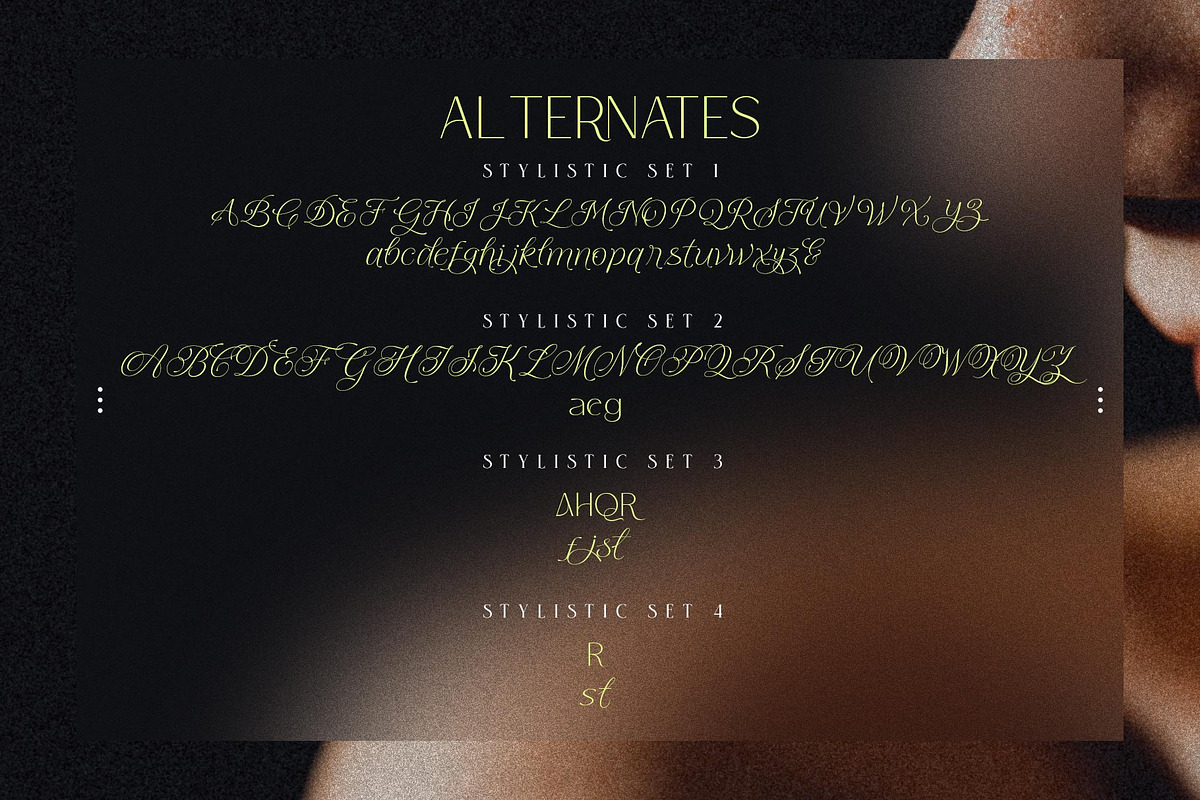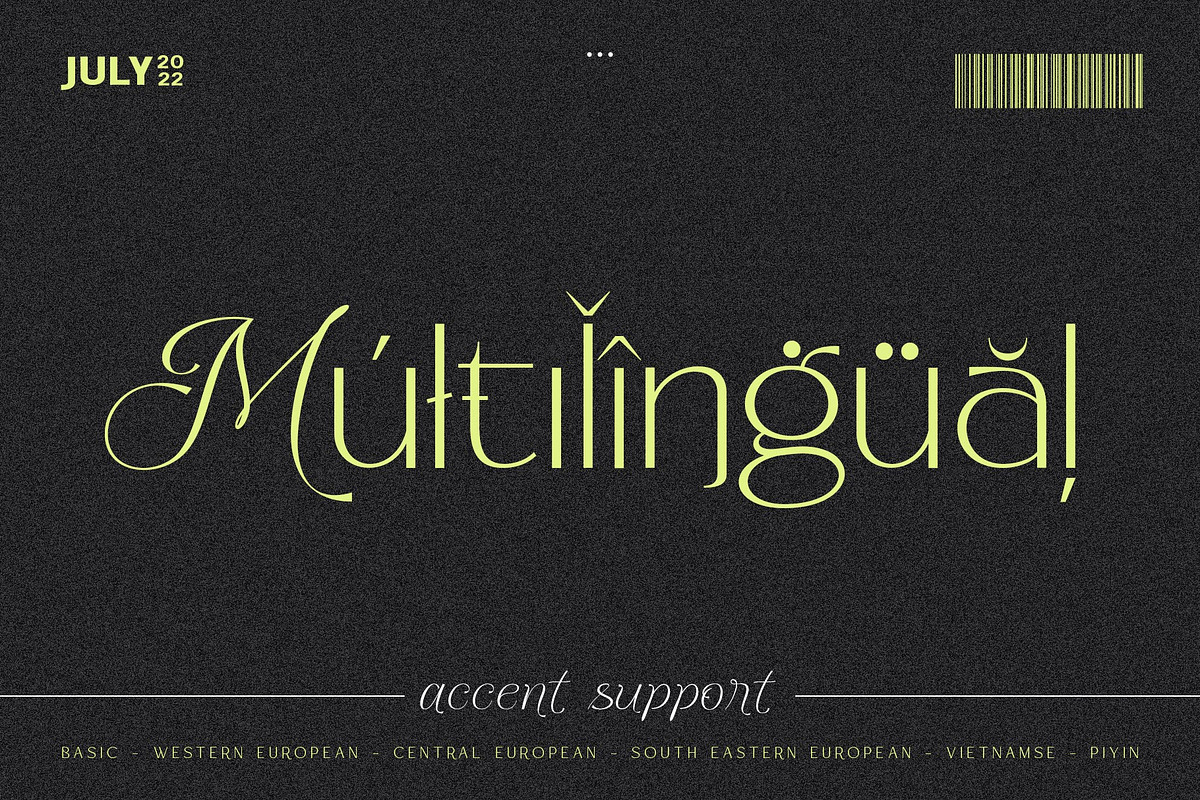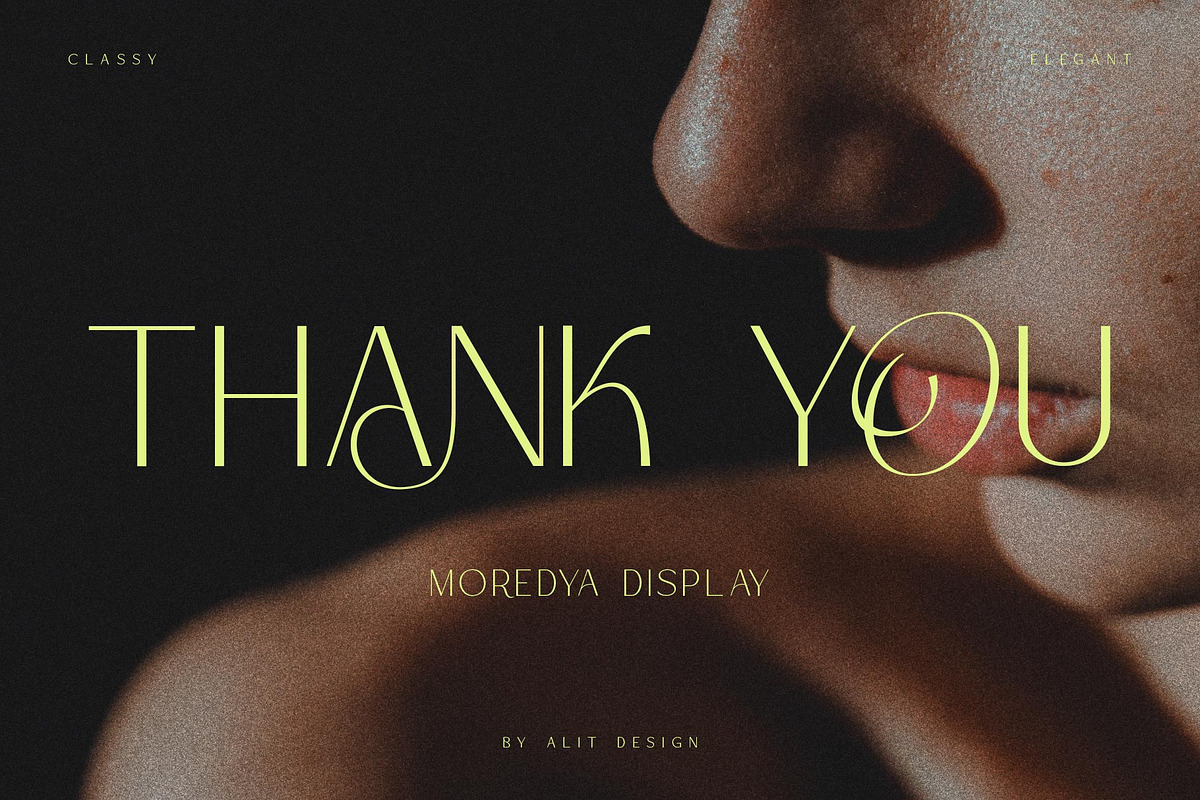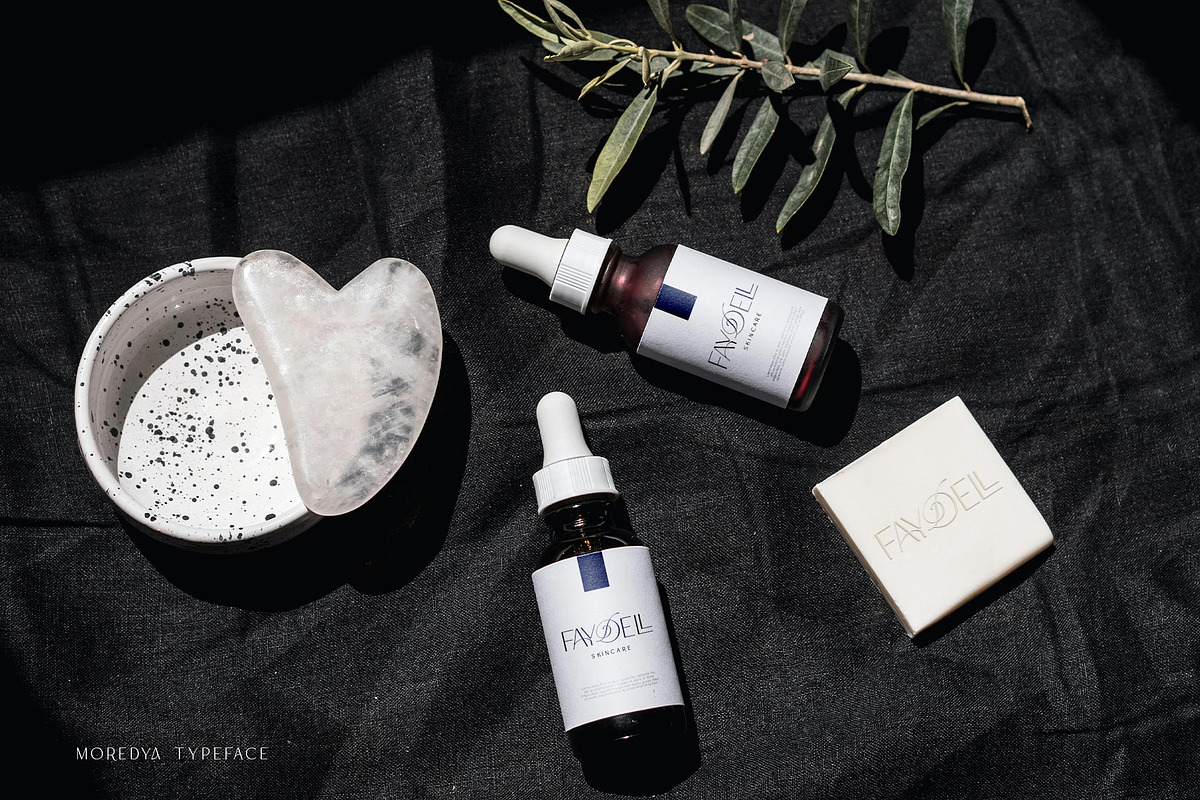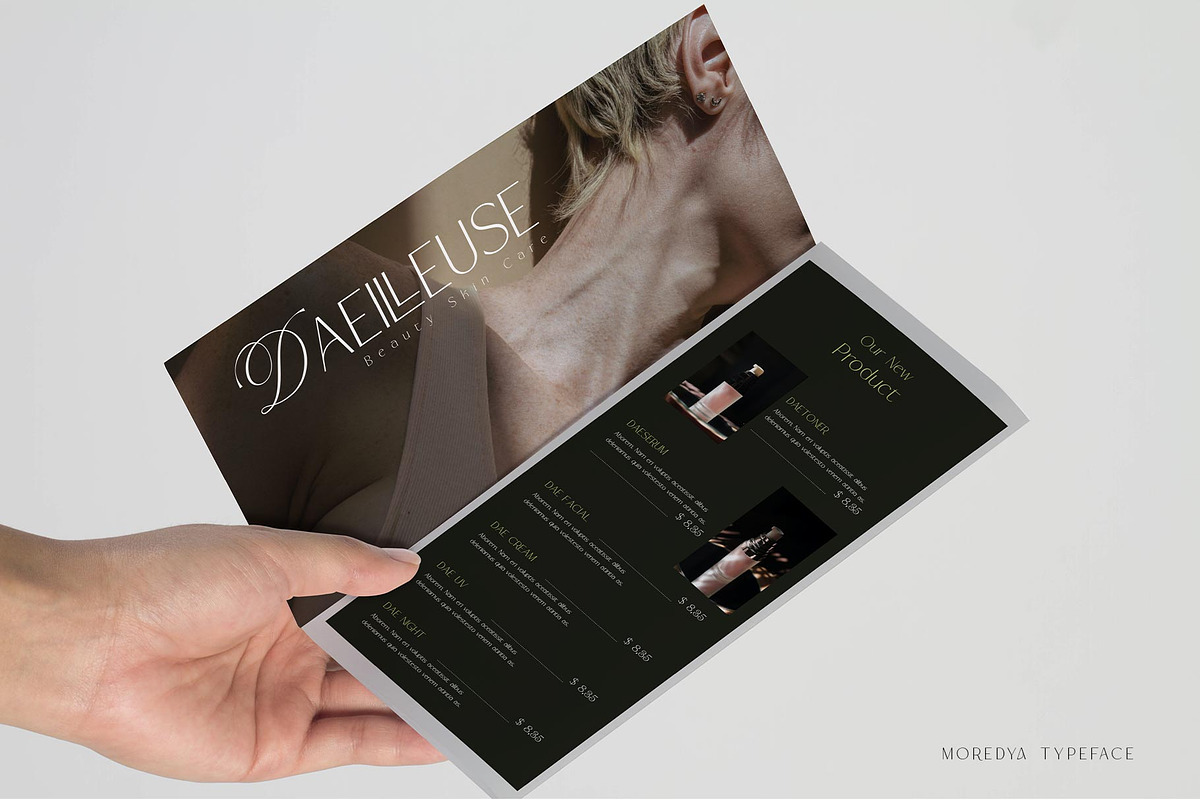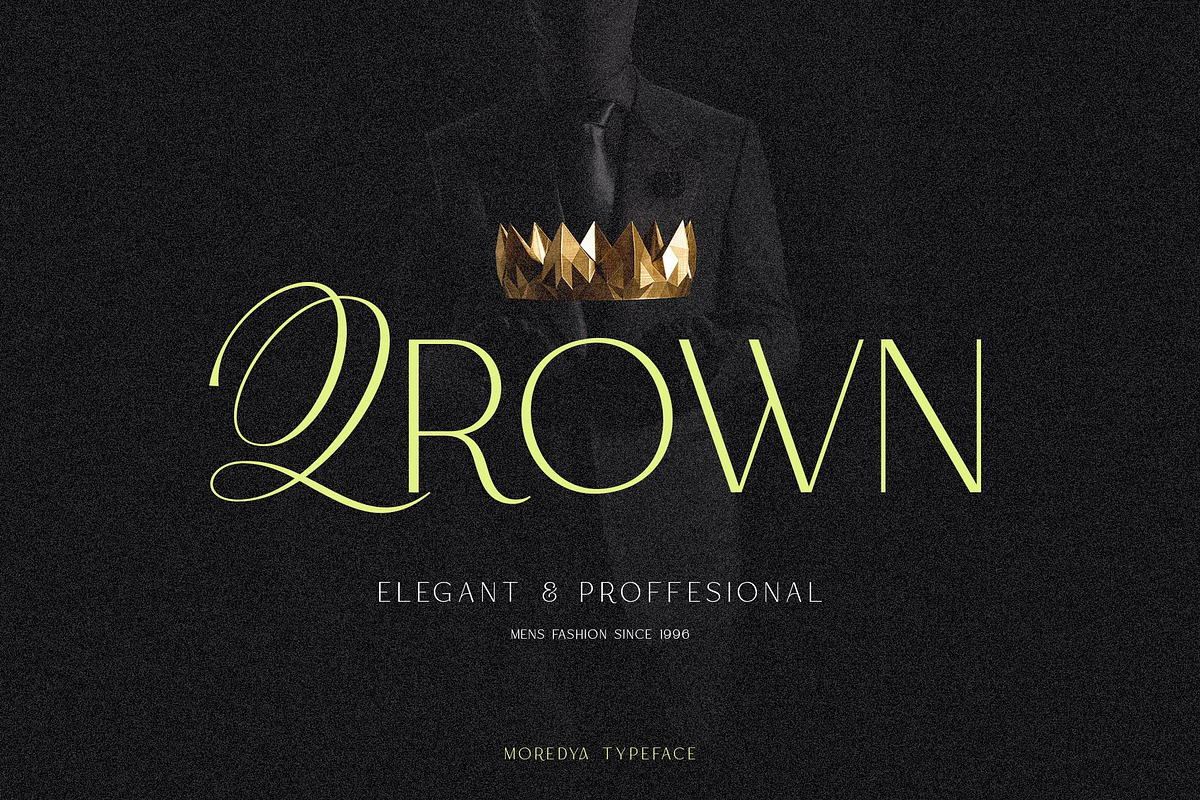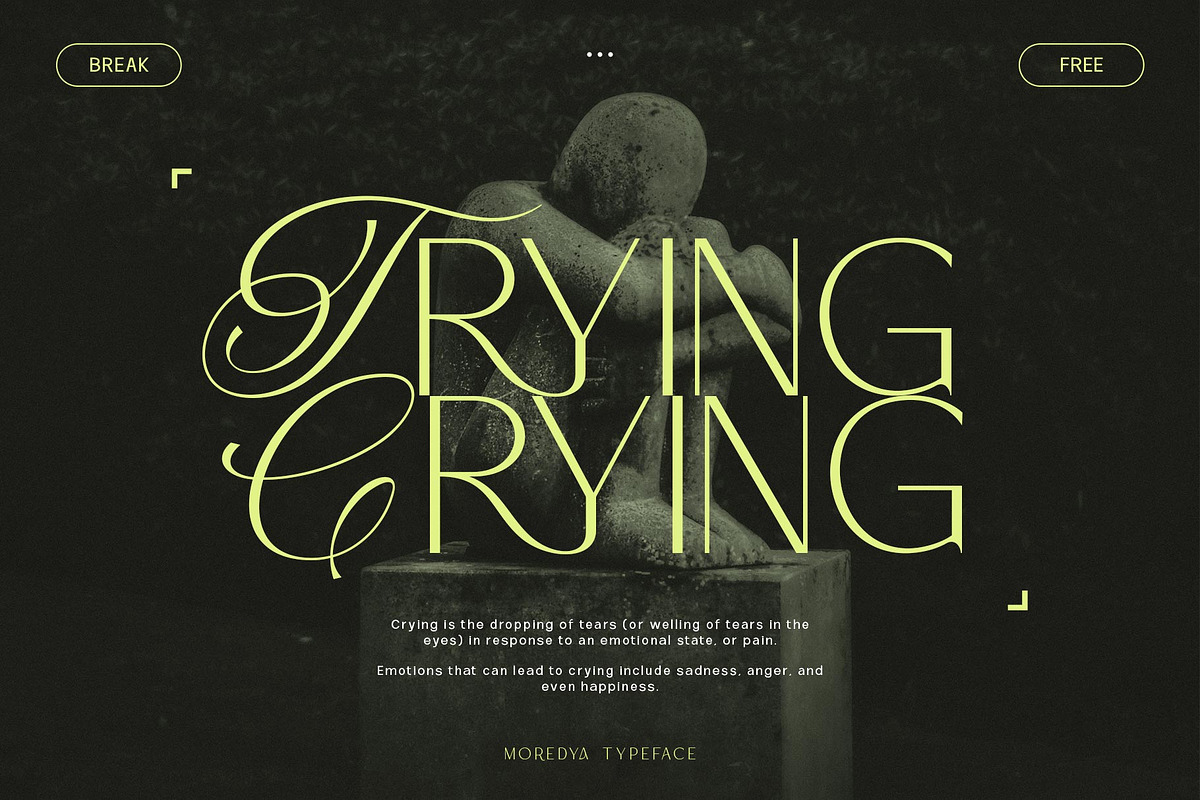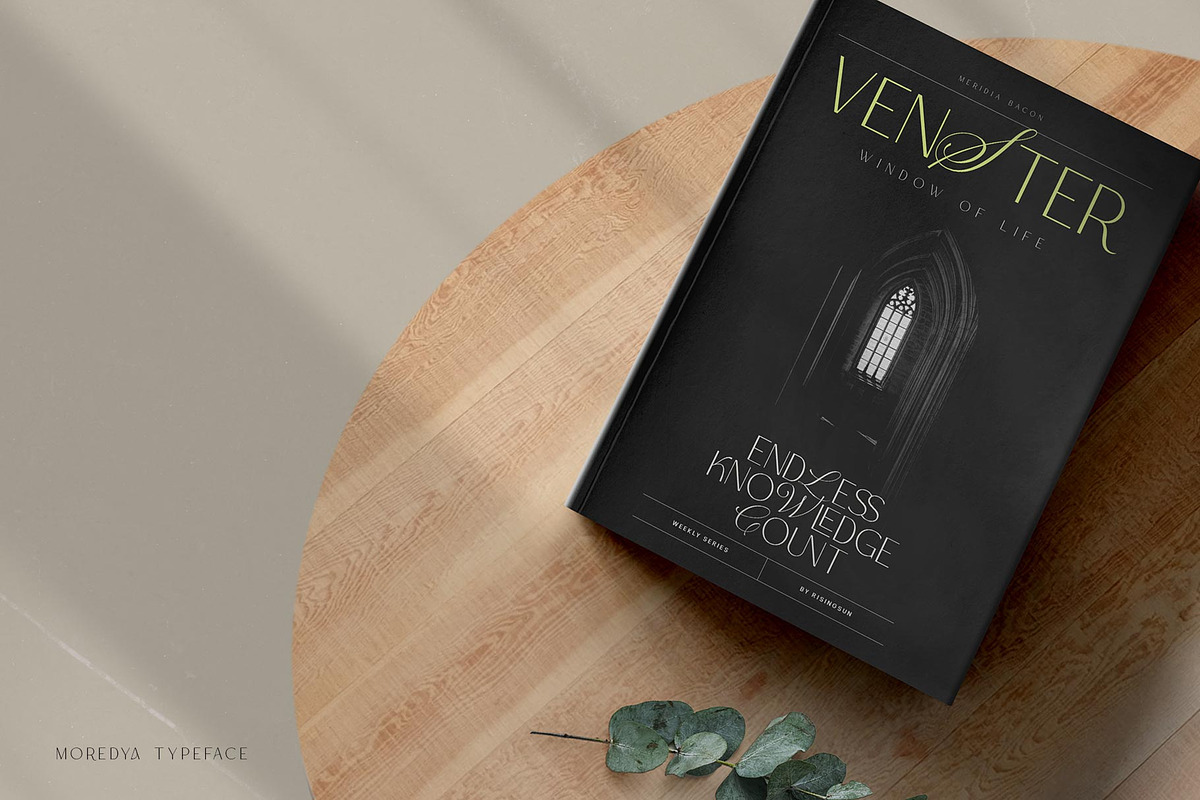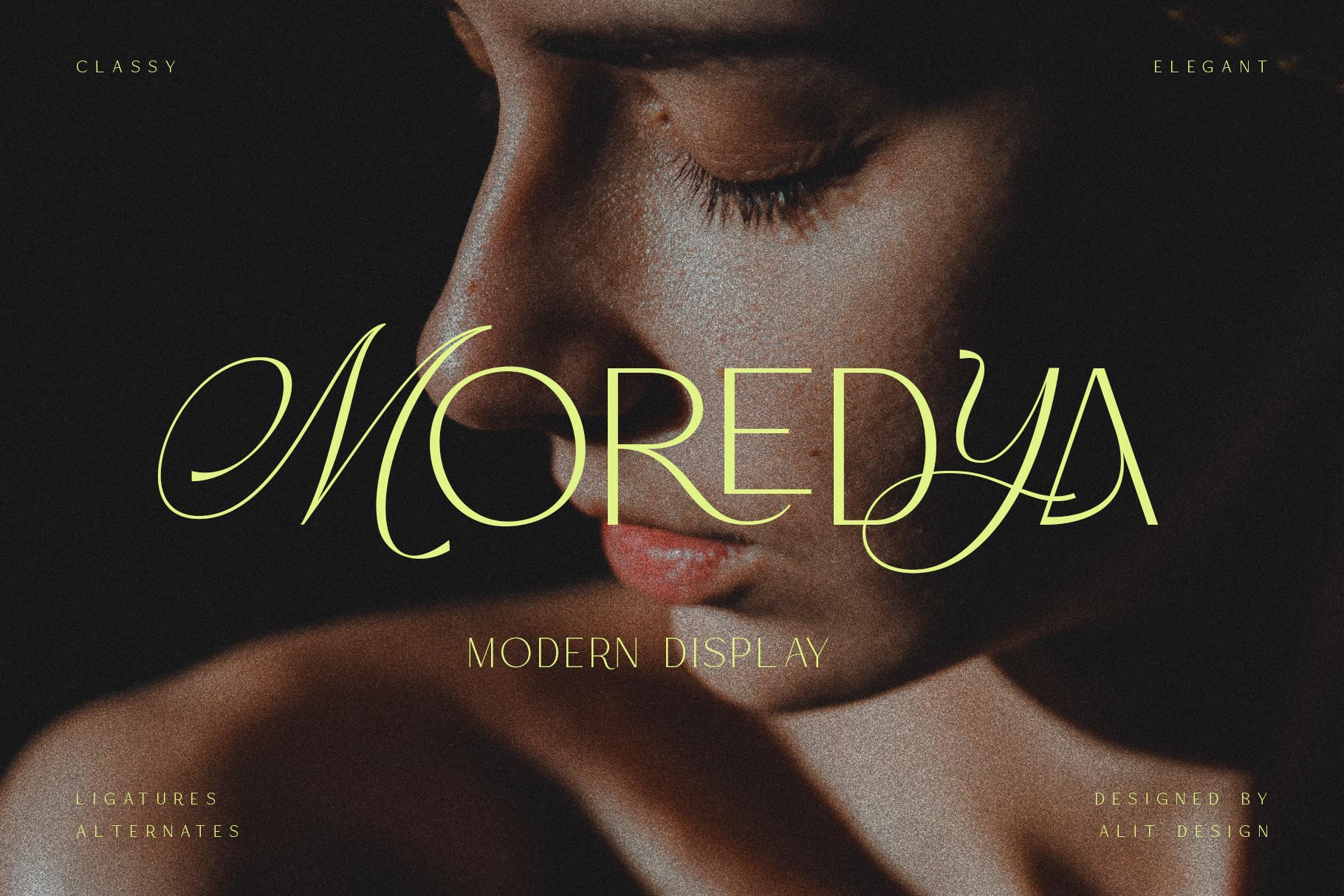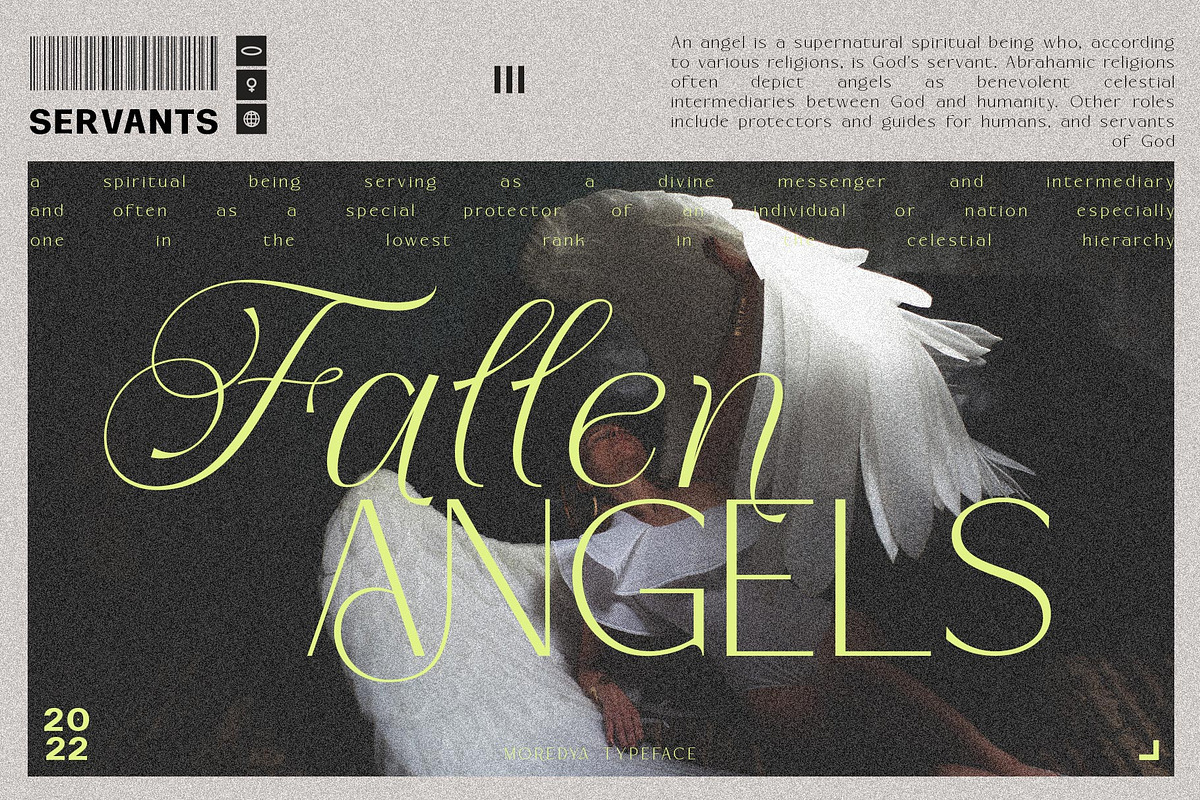
Moredya Typeface
Presenting the MOREDYA typeface from alitdesign.
Moredya font is designed by combining an elegant script font with a simple and charming sans serif font style. This font has a modern sans serif style combined with elegant script-style letters that make the MOREDYA font look different and unique from the fonts you have on your computer collection.
MOREDYA is perfect for magazine cover designs, brochures, flyers. Instagram ads, Canva Design and so on with unique and modern concepts. besides that this font is very easy to use both in design and non-design programs because everything changes and glyphs are supported by Unicode (PUA).
The "MOREDYA"contains 620 glyphs with many unique and interesting alternative options.
Language Support : Latin, Basic, Western European, Central European, South European,Vietnamese.